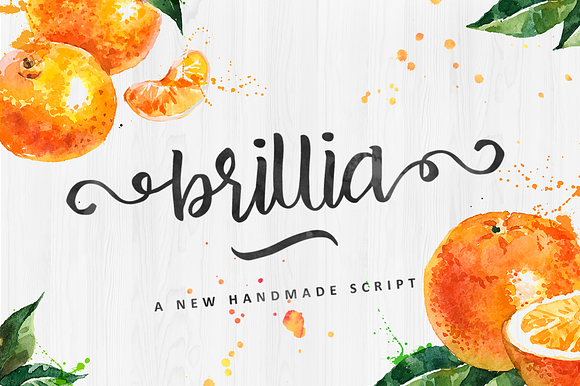
Brillia Script Font
Brillia Script Font is perfect for luxury jewelry branding, high-end beauty campaigns, elegant wedding invitations, premium fashion labels, sophisticated hospitality signage, exclusive spa treatments, refined greeting cards, cultured lifestyle magazines, upscale boutique materials, and brilliant luxury experiences.
Brillia Script Font is exciting because it perfectly captures the essence of sparkling brilliance and refined luxury, creating a script typeface that embodies the dazzling beauty of precious gems and the sophisticated elegance of haute couture craftsmanship. This font brings luminous sophistication and brilliant appeal to any project, making it ideal for luxury brands that want to convey exclusivity, radiance, and the scintillating beauty of premium quality. Its brilliant character and luxurious shine create an atmosphere of sparkling elegance that resonates with discerning audiences who appreciate the finest expressions of luxury and beauty.
Brillia Script Font family includes regular, light, and medium weights, plus sparkling flourishes, brilliant ornaments, and luminous decorative elements, providing designers with comprehensive tools for creating dazzling typography and brilliantly luxurious brand experiences.
This radiant luxury script typeface combines brilliant aesthetics with contemporary design excellence, making Brillia Script Font Free Download an exceptional choice for projects celebrating luxury craftsmanship and sparkling beauty. The font's luminously crafted letterforms feature brilliant proportions and gem-inspired styling that reflect the precision and artistry of fine jewelry making and luxury goods creation.
Whether you're designing high-end jewelry campaigns, luxury beauty branding, or exclusive hospitality materials, Brillia Script Font delivers unmatched brilliant authenticity and luxurious appeal. The font performs magnificently across both intimate luxury applications and grand scale environments where brilliance and sophistication create unforgettable premium experiences.
Luxury professionals choose Brillia Script Font for its ability to instantly communicate brilliant quality and sparkling sophistication while creating emotional connections with affluent customers seeking authentic luxury experiences and brilliant craftsmanship. The font's radiant character makes it particularly effective for fine jewelry stores, luxury beauty brands, and premium fashion houses.
Each character reflects the sparkling brilliance of precious gems, featuring luminous construction and brilliant proportions that create typography as dazzling and valuable as diamonds, crystals, and the most brilliant luxury experiences.